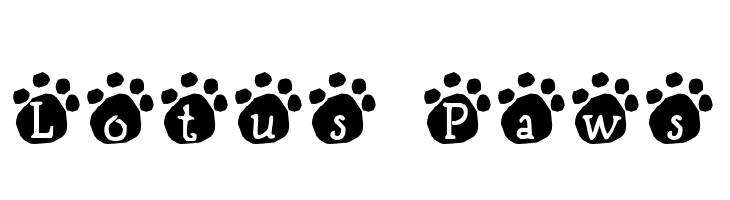
A bold, expressive handwritten font with dynamic strokes and a playful style.
( Giedi Prime )
A mystical, rune-like font with bold, flowing characters.
Explicit, playful dingbat font with erotic and adult-themed illustrations.
A decorative serif font with ornate circular frames around each letter.
A playful font with characters encased in paw prints, ideal for fun and whimsical designs.